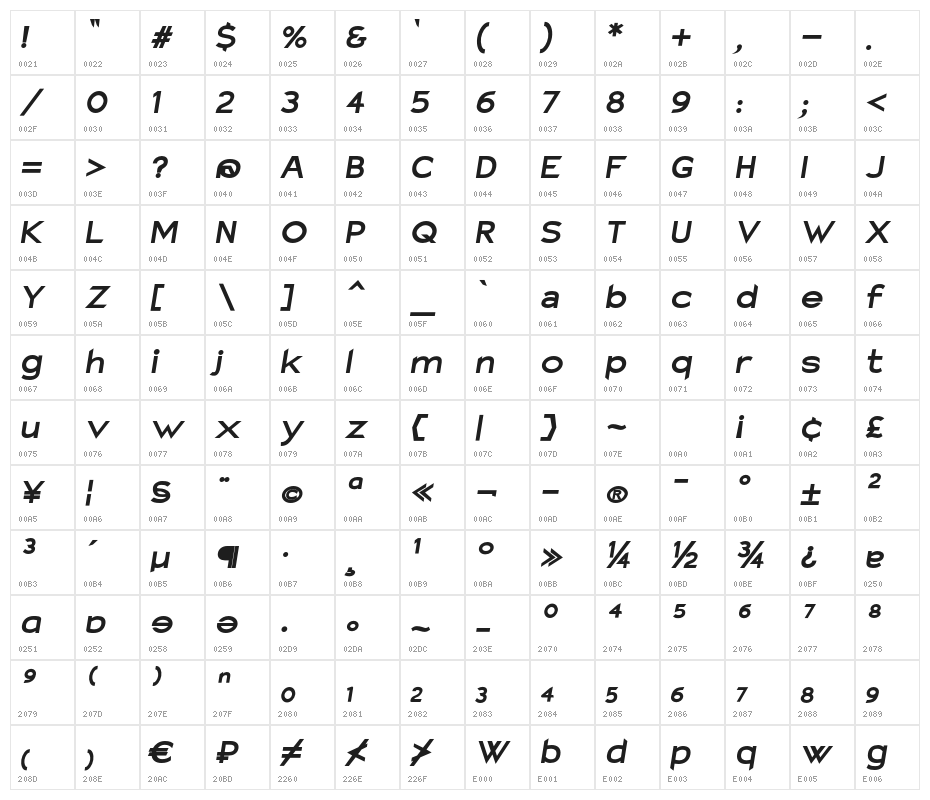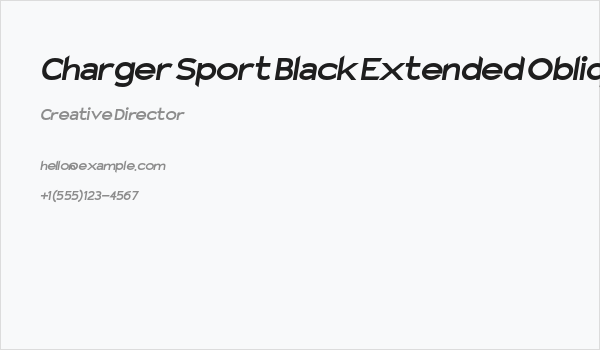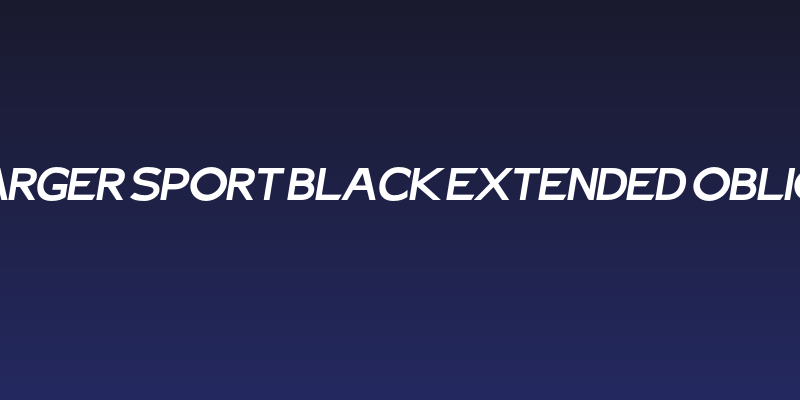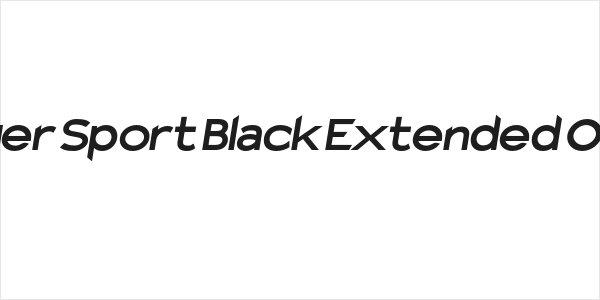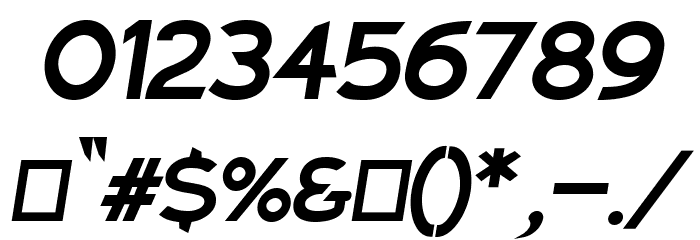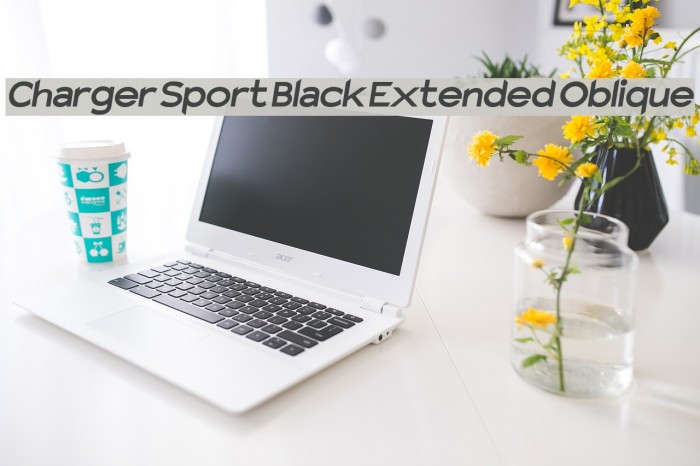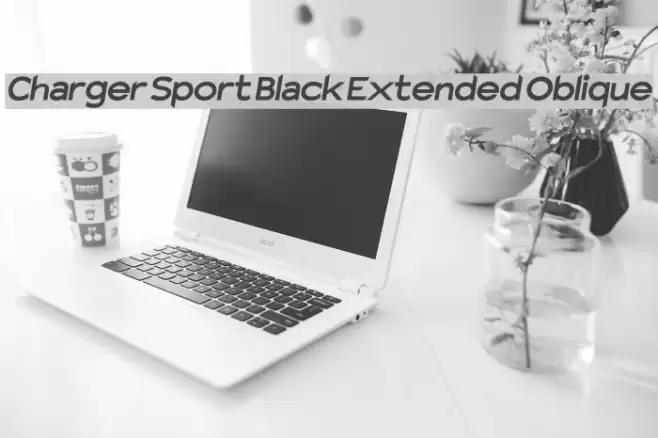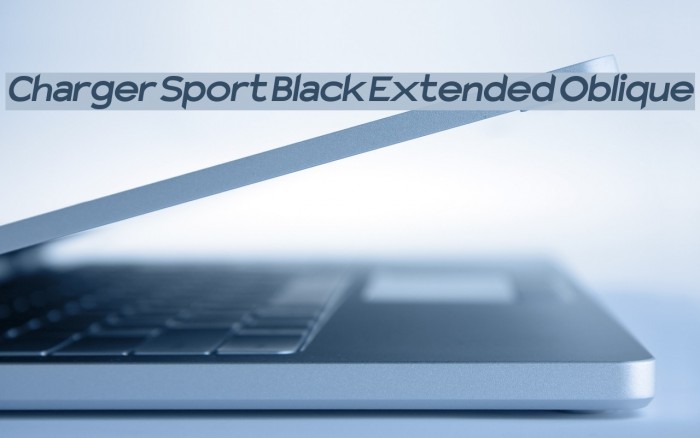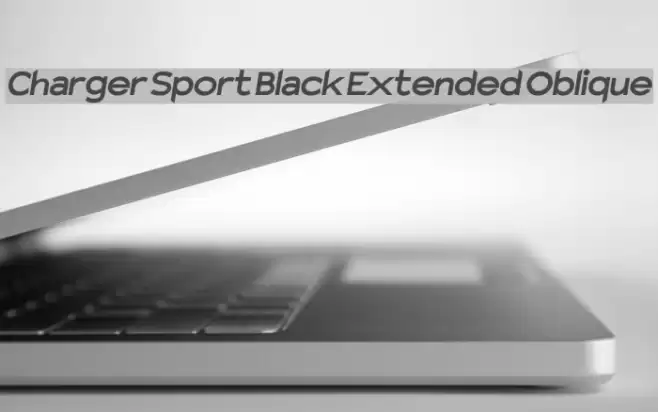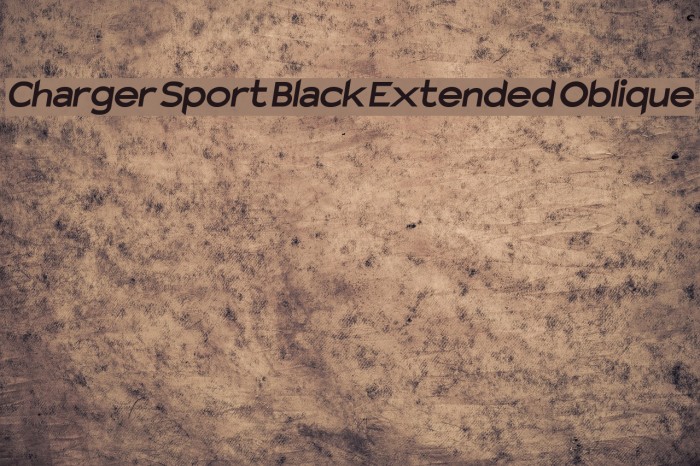
Charger Sport Black Extended Oblique Font
Charger Sport Black Extended Oblique Description
This font exhibits a dynamic and sporty aesthetic, characterized by its oblique orientation and extended width. The uppercase letters are bold and assertive, while the lowercase letters maintain a consistent flow with a slight slant, enhancing the font's energetic feel. The numerals are robust and clear, ensuring readability. Special characters are well-integrated, complementing the overall design. The font's modern style is suitable for projects that require a sense of motion and vitality.
| Use Case | Headlines, Logos, Branding |
| Proposed Projects | Ideal for sports branding, dynamic advertisements, automotive designs, and energetic event posters. |